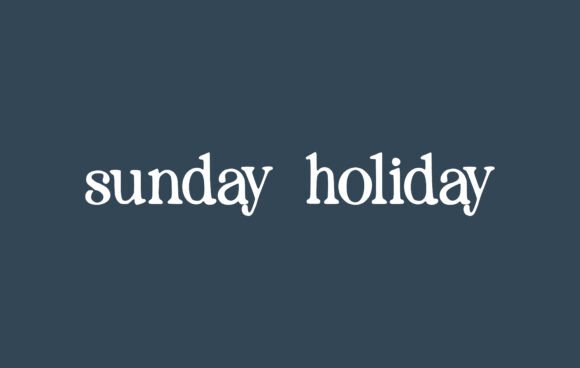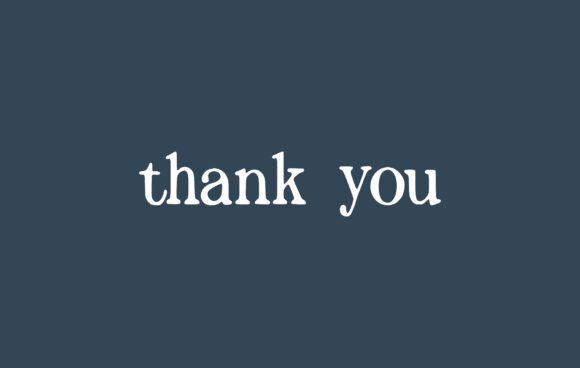
Discover the Charm of Haven Font: Elevate Your Designs with a Touch of Romance
In the world of typography, fonts play a pivotal role in bringing creative ideas to life. Among the myriad of fonts available, Haven Font stands out as a gem that combines authenticity with a romantic touch. This expertly designed serif font is not just a typeface; it’s a tool that can elevate your designs to unprecedented heights. Whether you’re a seasoned designer or a crafting enthusiast, Haven Font is poised to become your new favorite companion in the realm of visual storytelling.
The Essence of Haven Font
Haven Font is characterized by its authentic serif design, which exudes a sense of tradition and reliability. Yet, it is the romantic touch infused within its strokes that sets it apart from other serif fonts. This blend of classic and elegant elements makes Haven Font incredibly versatile, suitable for a wide array of design projects. From the bold statements of magazine headlines to the intimate feel of wedding invitations, Haven Font adapts with grace and sophistication.
Legibility and Versatility
One of the key strengths of Haven Font lies in its exceptional legibility. In today’s fast-paced digital age, where information is consumed rapidly, the ability of a font to convey messages clearly and effectively is paramount. Haven Font excels in this aspect, making it an ideal choice for both title and body text. Its clear and readable design ensures that your message is conveyed with precision, whether it’s used in a professional magazine layout, a casual social media post, or a detailed branding campaign.
Applications of Haven Font
The versatility of Haven Font is one of its most compelling attributes. Here are some of the many design areas where Haven Font can make a significant impact:
- Magazine Headlines: Create striking headlines that capture the essence of your story with Haven Font’s bold and inviting appearance.
- Social Media: Stand out in the crowded social media landscape with Haven Font’s unique charm, perfect for posts, stories, and banners.
- Branding: Establish a strong brand identity with Haven Font, suitable for logos, taglines, and marketing materials.
- Wedding Invitations: Add a touch of romance and elegance to your wedding invitations, making the occasion even more special.
- Cards: From greeting cards to thank-you notes, Haven Font brings a personal and heartfelt touch to your correspondence.
Why Choose Haven Font?
With so many fonts at your disposal, why should Haven Font be your go-to choice? The answer lies in its perfect blend of classic authenticity and romantic flair. Haven Font is not just a typeface; it’s a design companion that understands the nuances of visual communication. Its legibility, versatility, and charming aesthetic make it an invaluable asset for designers and crafters looking to leave a lasting impression.
In conclusion, Haven Font is more than just a serif font; it’s a gateway to creating visually stunning and effective designs. Whether you’re aiming to make a bold statement or convey a heartfelt message, Haven Font is your ally in the world of typography. With its authentic and romantic charm, exceptional legibility, and wide range of applications, Haven Font is set to become a favorite among designers and crafters. So, why wait? Explore the possibilities with Haven Font and take your creative projects to new heights.